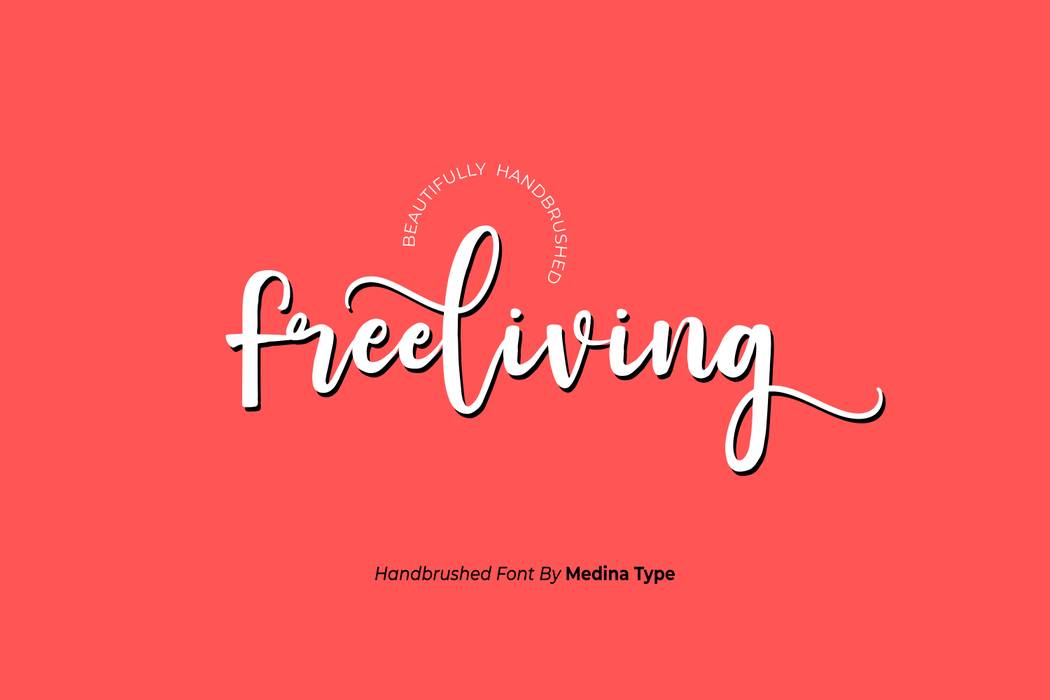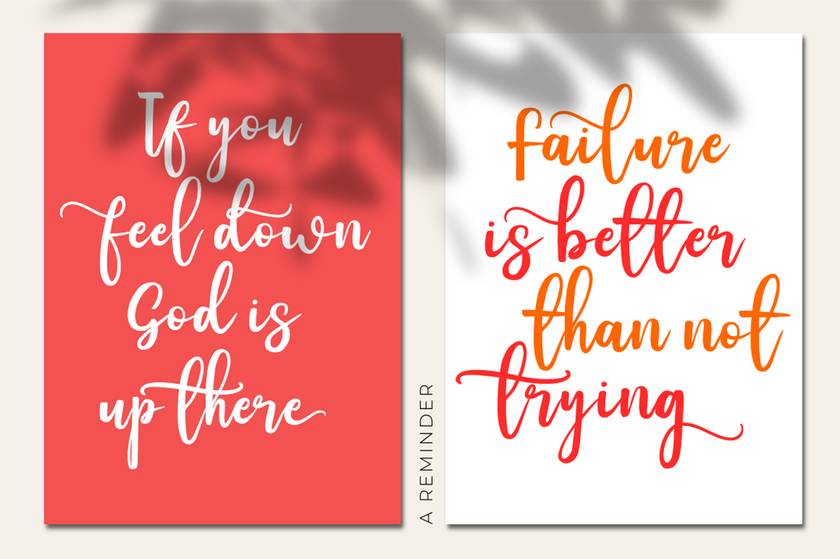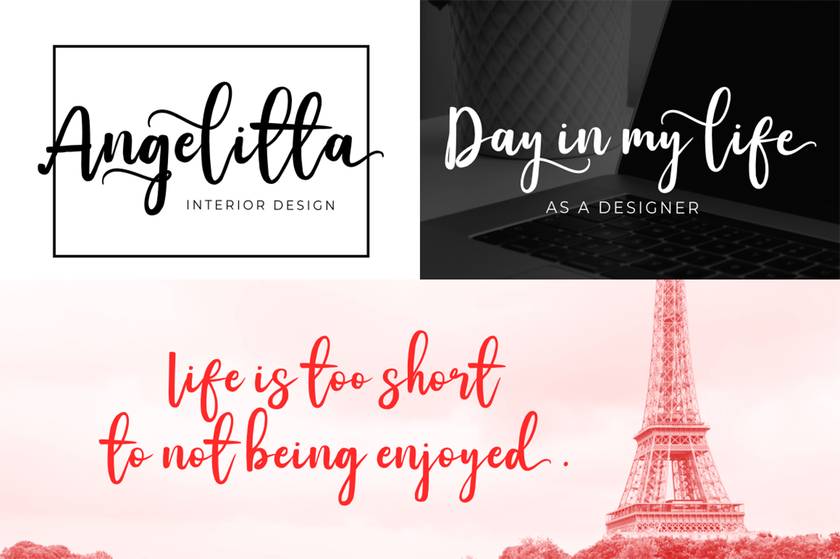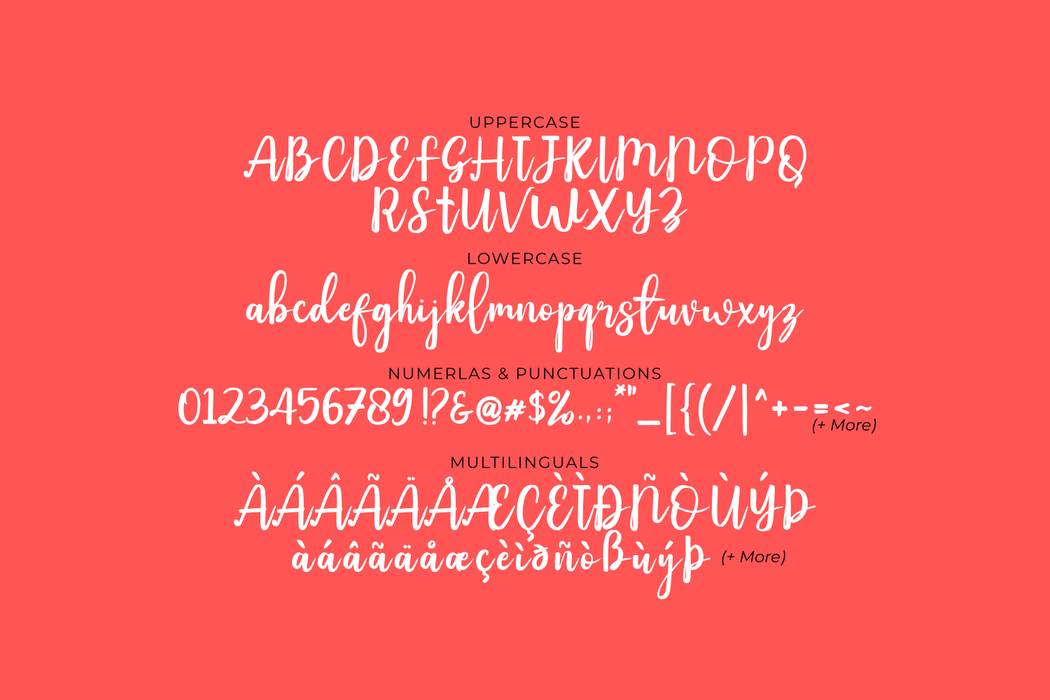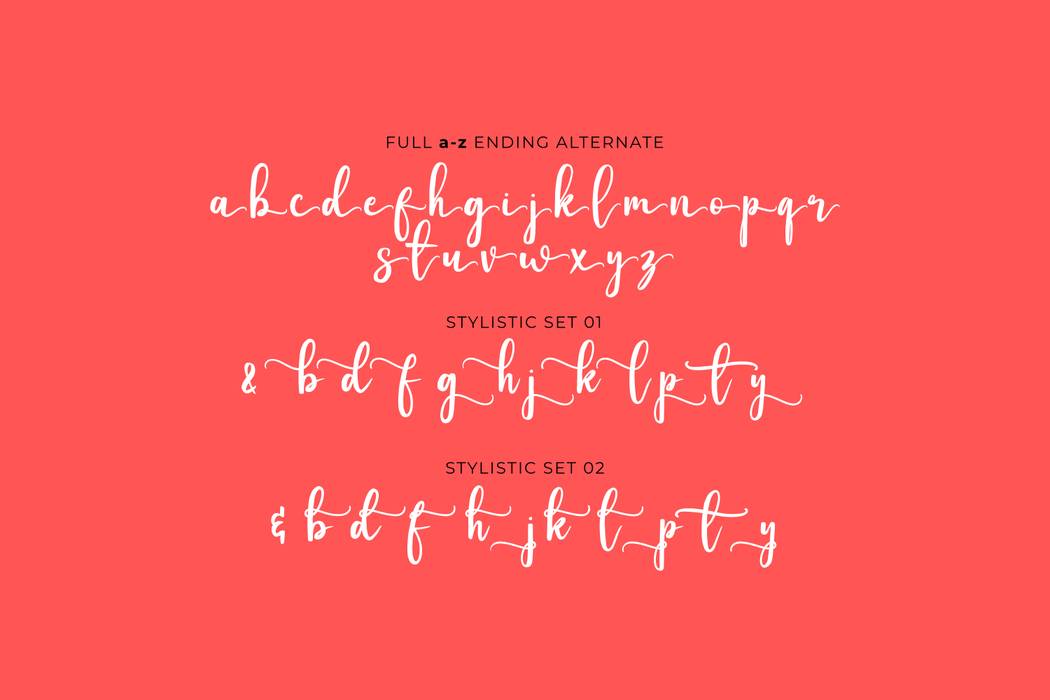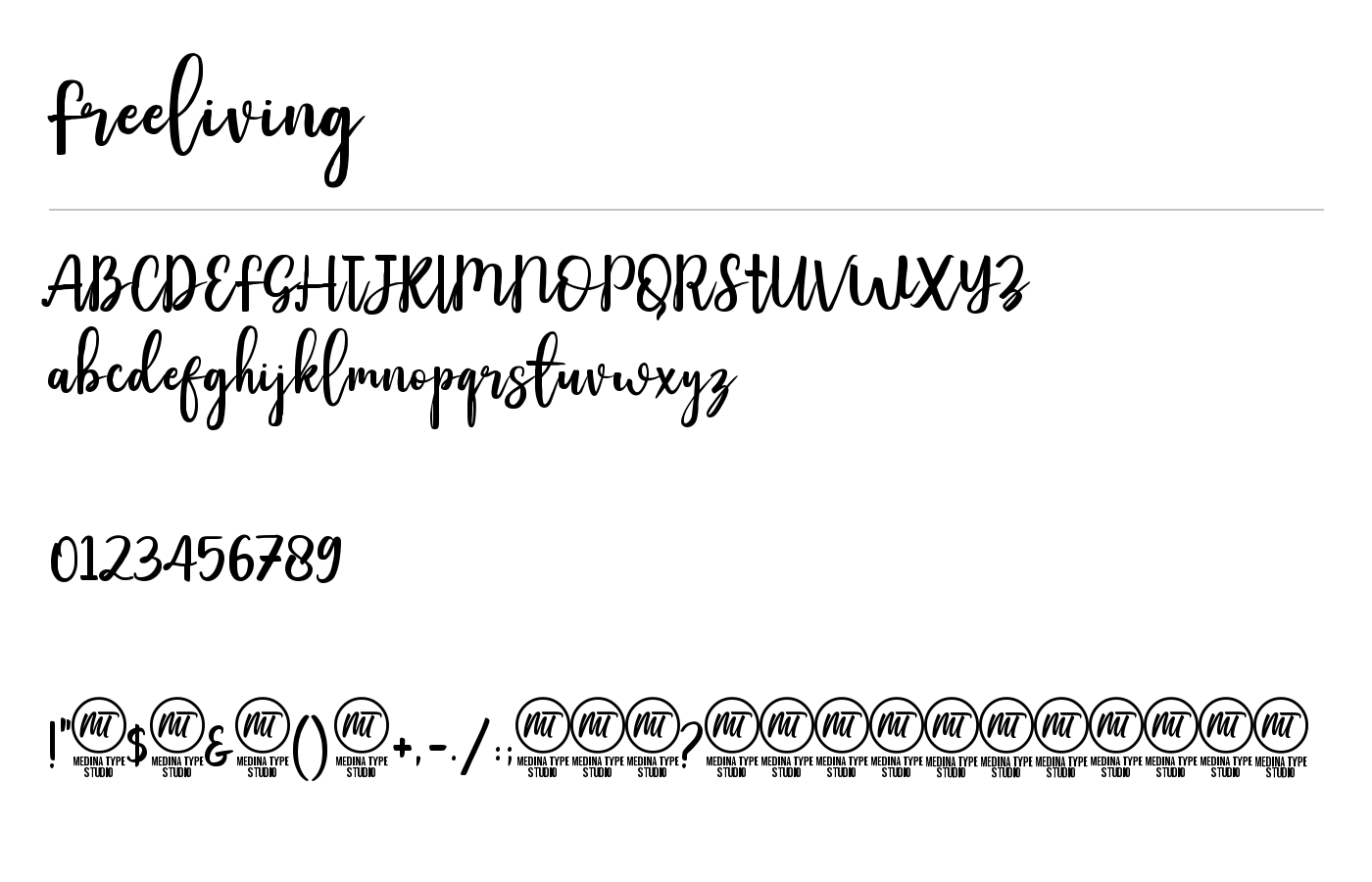
Freeliving is a playful and elegant script font with a handwritten feel, featuring smooth and flowing letterforms with moderate contrast and tall x-height for readability. Its casual yet refined style makes it ideal for creative branding, invitations, and lifestyle projects where a personal, friendly touch is desired. This font works well in logos, packaging, and headlines, adding warmth and charm to any design.
Freeliving Font
About Freeliving Font
| Font family | Freeliving Font |
| Designer | Medina Type Studio |